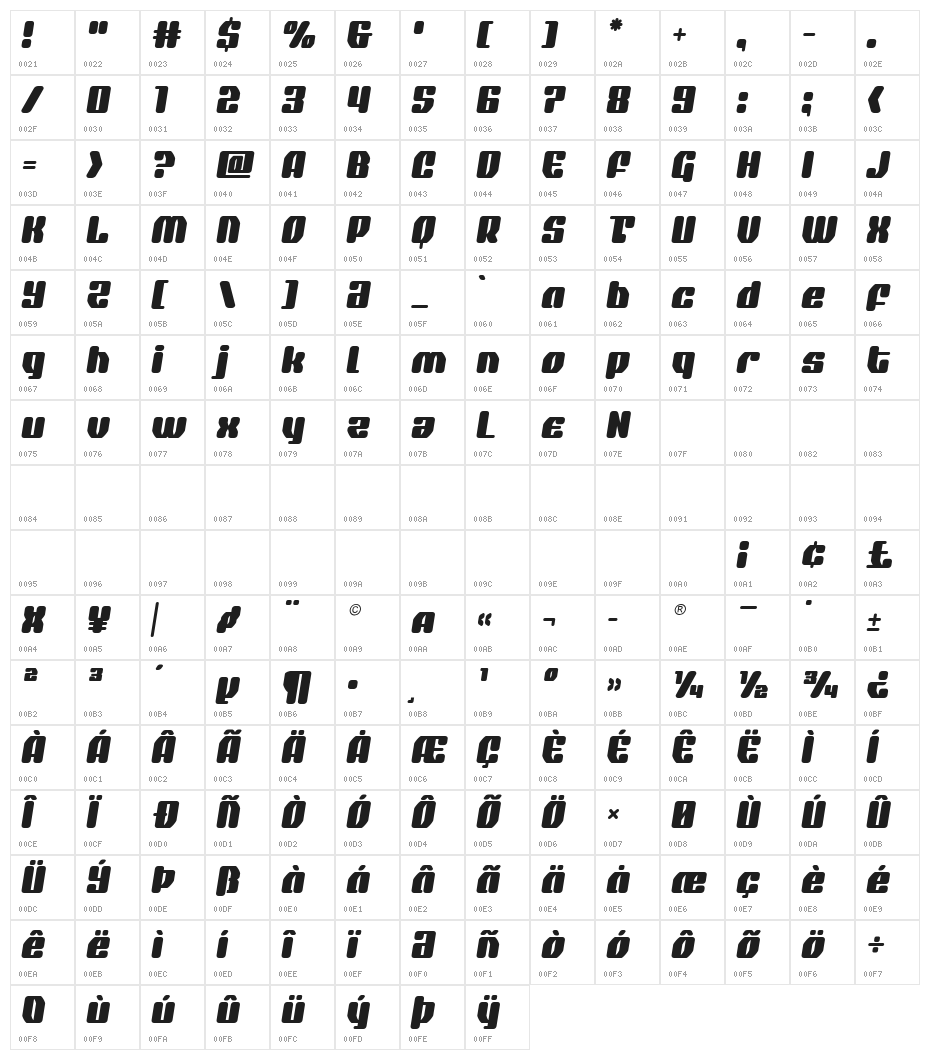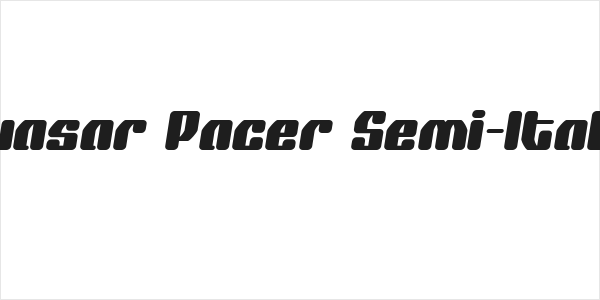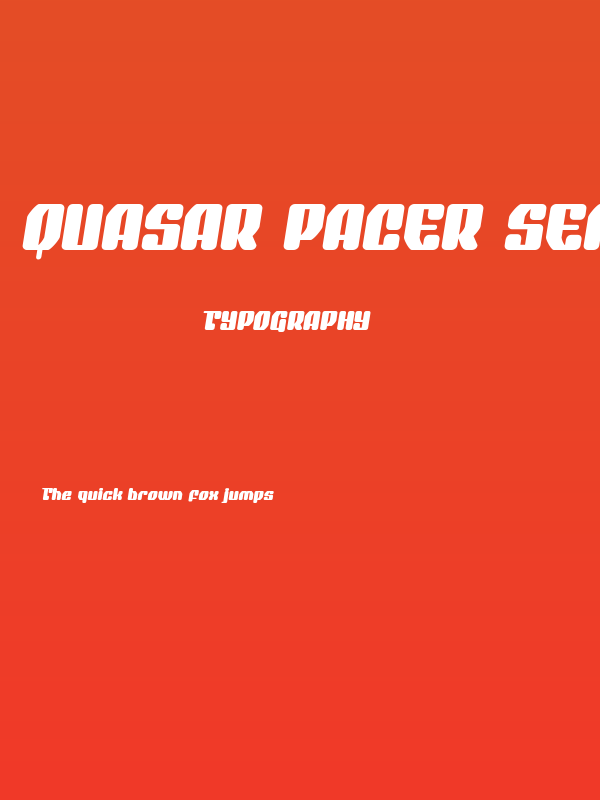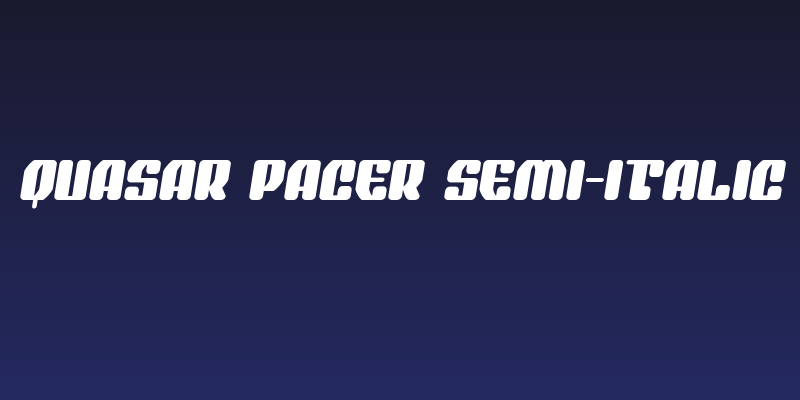
Quasar Pacer Semi-Italic Font
Quasar Pacer Semi-Italic Description
This font features a bold and dynamic style with a semi-italic slant, giving it a sense of motion and energy. The characters are thick and robust, with rounded edges that soften the overall appearance. The uppercase and lowercase letters maintain a consistent width, creating a uniform look across the text. The numerals and special characters follow the same bold and rounded design, ensuring cohesion throughout. This font is ideal for making a strong visual impact, with its distinctive and modern aesthetic.
| Proposed Projects | Ideal for sports branding, dynamic posters, modern advertisements, and eye-catching headlines. |